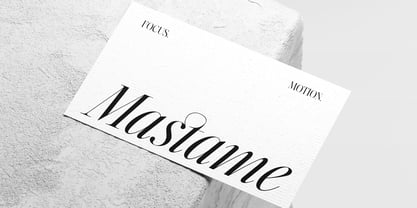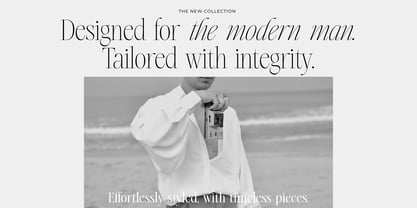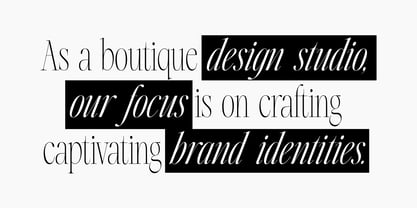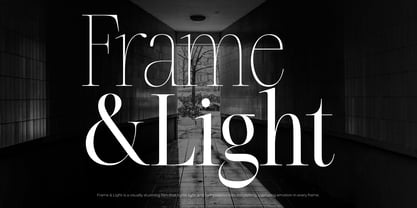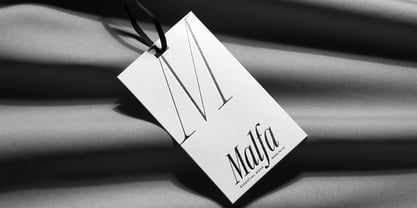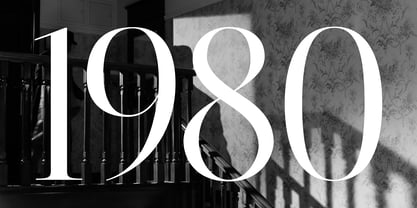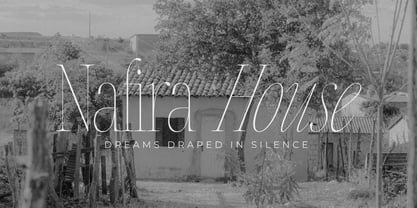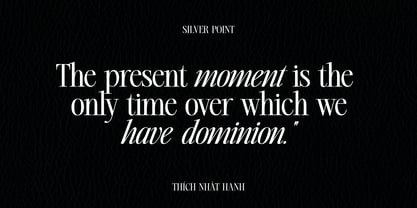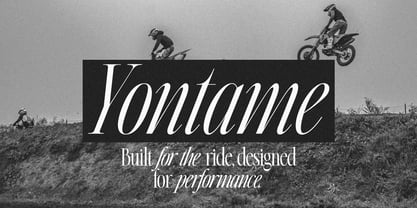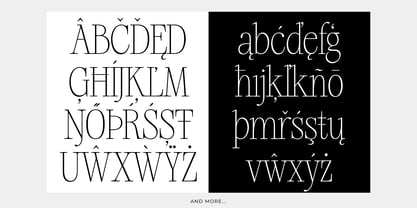
Silver Point
by Issam Type
The Silver Point Font Family was designed by Issam Boufelja and published by Issam Type. Silver Point contains 32 styles.
Silver Point is a modern serif typeface designed with elegance and versatility in mind. With 32 refined styles including condensed and text versions, Silver Point is perfect for editorial layouts, logos, branding, packaging, invitations, and more.
This typeface includes Thin, Regular, Bold, and Black weights, each with matching Italics, along with text-optimized and condensed versions for maximum readability and flexibility.
Silver Point supports uppercase & lowercase letters, numbers, punctuation, ligatures, alternates, and multilingual characters.